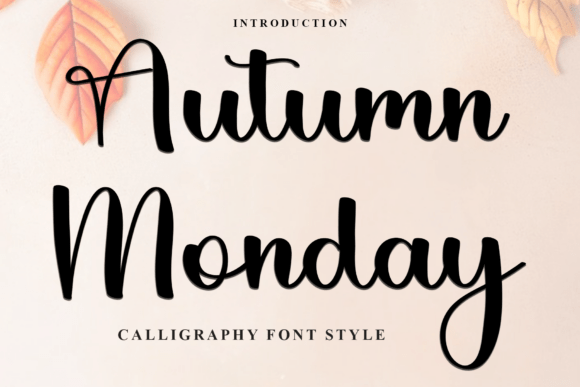
Unleashing the Magic of Autumn Monday Font
Have you ever stared at a blank canvas, feeling the weight of a creative project on your shoulders? The blank page stares back at you, a daunting challenge waiting to be conquered. It’s in these moments that we turn to the tools that can help bring our visions to life – and that’s where a beautiful font like Autumn Monday comes into play.
This lovely font is more than just a pretty face; it’s a versatile tool designed to add a touch of elegance to your designs. With its soft, unique strokes, the Autumn Monday Font is perfect for a wide range of creative projects, from graphic design to crafts and beyond.
Whether you’re a seasoned designer or just starting out, the Autumn Monday Font is a valuable addition to your toolkit. Its compatibility with various applications makes it easy to incorporate into your workflow, and its natural style is sure to enhance your designs and capture the attention of your audience.
- Unique Characteristics: This font features a distinctive, hand-drawn feel with intricate details and subtle texture, giving it a unique aesthetic.
Autumn Monday Font Review
Overall, I think the Autumn Monday Font has a lot of potential, but it also has some limitations that might make it not suitable for all projects. Let’s dive into the details.
- The font’s unique, handwritten feel is quite charming and can add a lot of character to a design.
- The font’s script-like features, such as the swashes and flourishes, are well-executed and add a touch of elegance.
- The font is highly customizable, with a wide range of OpenType features and stylistic sets that allow designers to tailor the font to their needs.
- The font’s irregularities can make it difficult to read, especially at small font sizes or in body text.
- The font’s stylistic sets can be overwhelming and might not be suitable for projects where a more straightforward, sans-serif font is needed.
- The font is not as versatile as some other fonts, and its handwritten feel might not be suitable for all types of projects.
The Autumn Monday Font is a unique and charming font that can add a lot of character to a design. However, its limitations might make it not suitable for all projects. I would recommend using this font for projects where a handwritten or script font is specifically needed, such as wedding invitations, menus, or other creative projects.
For the most effective use of the Autumn Monday font, pair it with complementary colors and designs that evoke a cozy, autumnal feel. Use it sparingly to add emphasis to headings or titles.
The Autumn Monday font is perfect for fall-themed designs, such as:
- Invitations and party materials
- Seasonal marketing materials
- Blog posts and articles about fall topics
- Personalized stationery and cards
Alternatives to Autumn Monday Font
Playfair Display is a high-end serif font ideal for luxury brands, high-end fashion, and fine art. It features elegant swashes and long strokes, perfect for creating a sophisticated and refined look. Compared to Autumn Monday Font, Playfair Display has a more formal and elegant feel, while Autumn Monday Font has a more rustic and natural feel.
Lato is a modern sans-serif font that works well for clean and minimal designs. It’s ideal for use in corporate branding, websites, and mobile apps. Lato is more versatile and modern compared to Autumn Monday Font, which has a more vintage feel. However, Lato lacks the unique character of Autumn Monday Font.